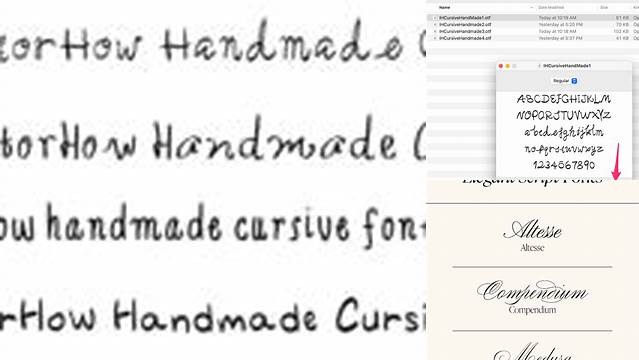
Unlock Elegance: Free Cursive Fonts For Adobe Illustrator
Hey guys! If you're like me, you love adding a touch of sophistication and personality to your designs, and what better way to do that than with some beautiful cursive fonts in Adobe Illustrator? The good news is, you don't have to break the bank to get access to some amazing options. There's a whole world of free cursive fonts out there just waiting to be discovered, and they're perfect for everything from elegant invitations to eye-catching logos. In this article, we're diving deep into the best free cursive fonts you can find, how to install them, and how to make the most of them in your Adobe Illustrator projects. Get ready to elevate your designs with a touch of handwritten charm! Let's get started on this exciting journey, where we explore the best free cursive fonts for Adobe Illustrator!
1. Exploring the Allure of Cursive Fonts in Design
So, what's the big deal about cursive fonts, anyway? Well, for starters, they bring a certain level of artistry and personality to your designs that can be hard to replicate with other font styles. Free cursive fonts can instantly transform a project from ordinary to extraordinary, adding a touch of elegance, romance, or even playfulness, depending on the specific font you choose. They're particularly effective for projects where you want to convey a sense of handcrafted quality, like wedding invitations, greeting cards, or branding materials. Think about it: a logo that's hand-lettered just feels more personal and unique than one that's made with a basic sans-serif font.
Cursive fonts also have a way of drawing the eye and creating a sense of visual interest. The flowing lines and connected letters create a rhythm that can make your design more engaging and memorable. But, it's not just about aesthetics! The right cursive font can also convey the tone and message of your brand or project. A delicate, flowing script might be perfect for a luxury brand, while a more bold and playful cursive font could be ideal for a children's product. This versatility is the key to why free cursive fonts for Adobe Illustrator are a must-have in any designer's toolkit. Plus, with the rise of digital design, the use of cursive fonts adds a human element that's sometimes missing in the clean lines of modern design. It brings back the feel of a personal note, a handwritten invitation, or a custom creation, all of which can help your brand stand out in a crowded market. Remember, a well-chosen cursive font is more than just pretty letters; it's a powerful tool for storytelling and visual communication, something that is very important when you are in the design industry!
Beyond the financial benefits, free fonts also encourage creativity. The availability of so many free options pushes designers to be resourceful and explore diverse styles. You might stumble upon a hidden gem that you'd never have considered if you were only looking at paid options. Plus, using free fonts can be a great way to support independent designers. Many free fonts are created by talented individuals who are passionate about typography and want to share their work with the world. By using their fonts, you're helping to spread their creativity and get their work seen by a wider audience. In the current design world, there are a lot of resources that you can use, but free resources are always the best choice. It's a win-win if you ask me!